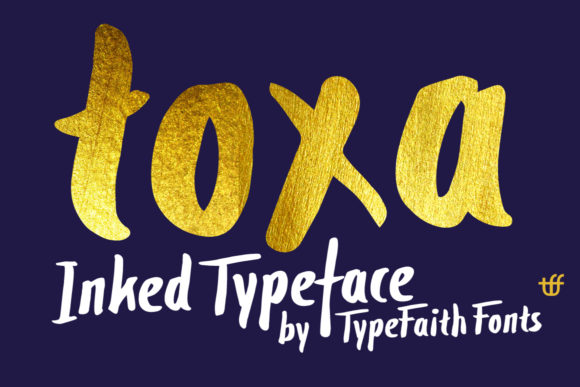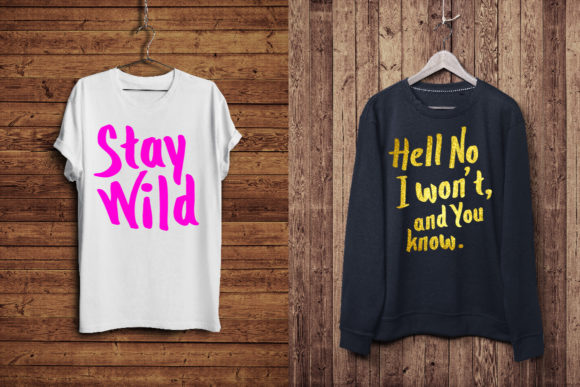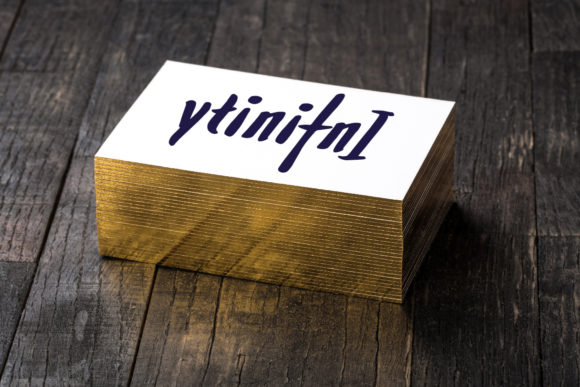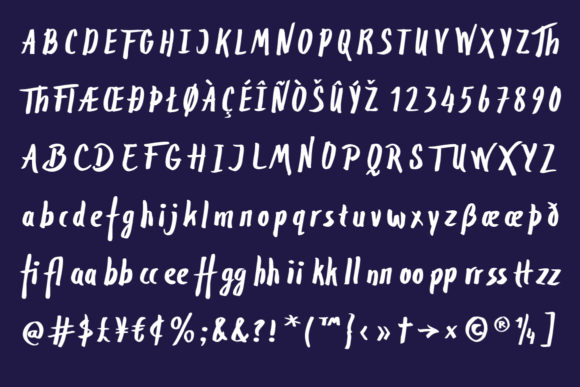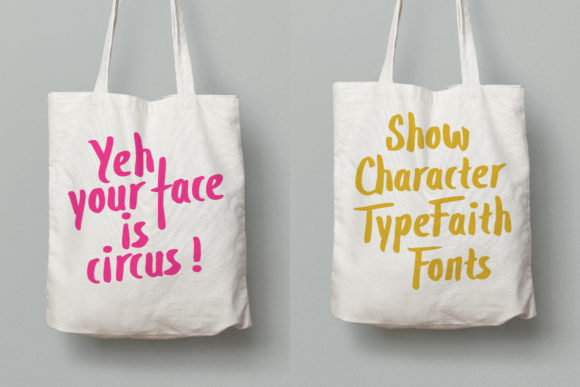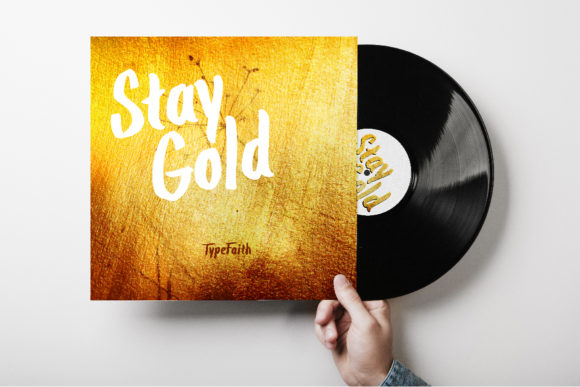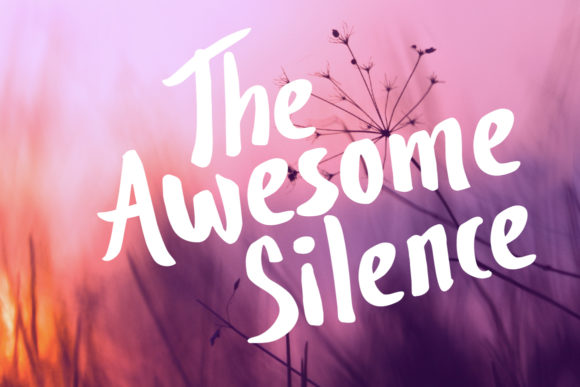
Toxa Font
About Toxa Font
Toxa Ink is a bold and friendly handwritten font. Use it to make your ideas even more realistic and create spectacular designs!